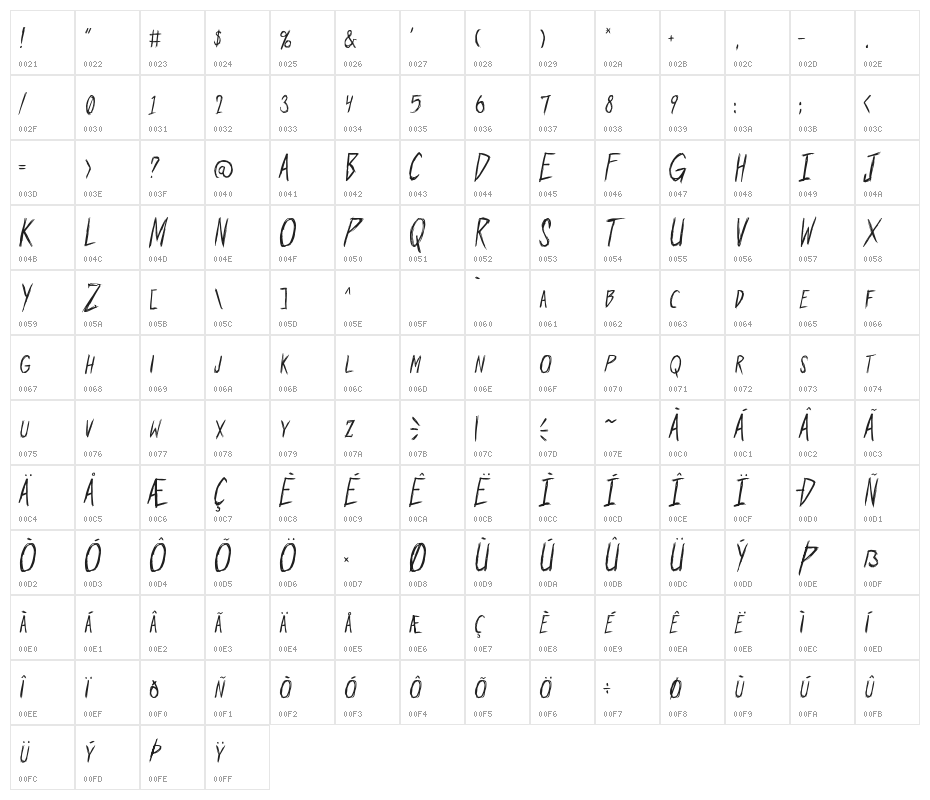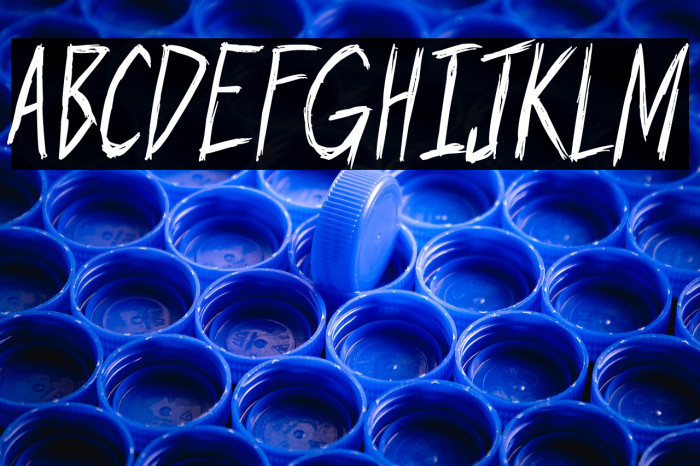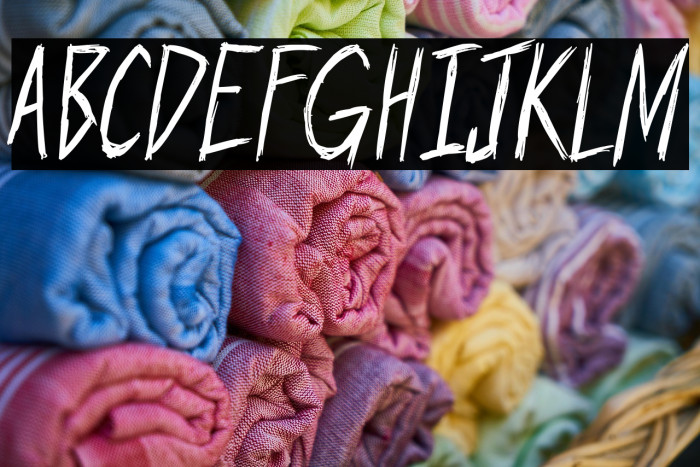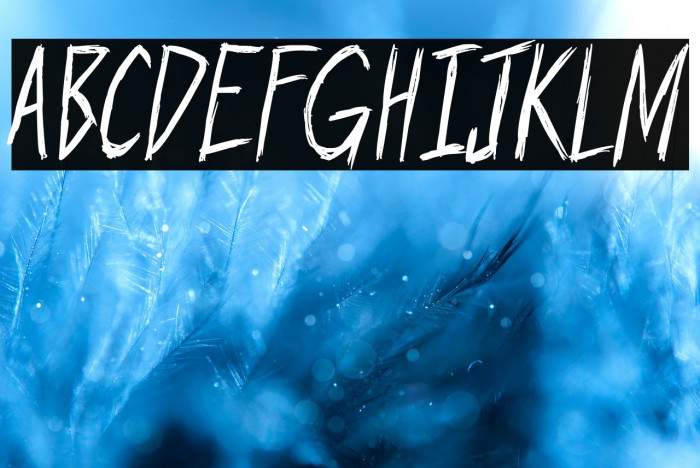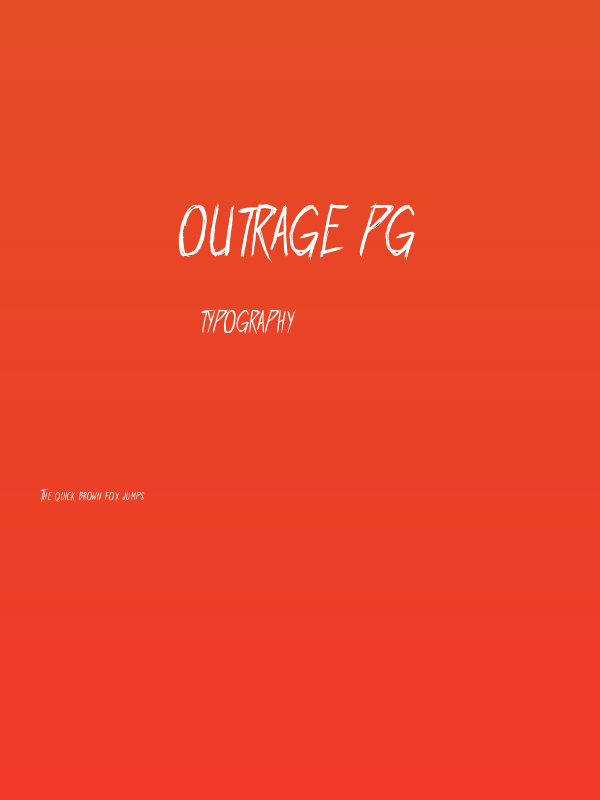
Outrage PG Font
This font features a dynamic and edgy style, characterized by its rough, hand-drawn appearance. The letters are bold and slightly irregular, giving them a sense of movement and energy. The strokes are uneven, with a sketch-like quality that adds to its raw and expressive nature. This font is highly distinctive, with a rebellious and artistic flair that makes it stand out. It is perfect for projects that require a bold statement or an unconventional look. The uppercase and lowercase letters maintain a consistent style, while the numbers and special characters complement the overall design with their unique, jagged forms.
| Overall Style | Modern, Artistic |
| Proposed Projects | Ideal for album covers, posters, graffiti art, and edgy branding projects. |